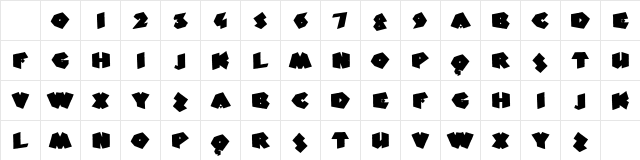
Fat Fantasy is a composed and adaptable typeface that performs quietly and consistently across a wide range of design contexts.
Pro Tip: Use Fat Fantasy in both headline and body roles to test its range before committing to a single application.